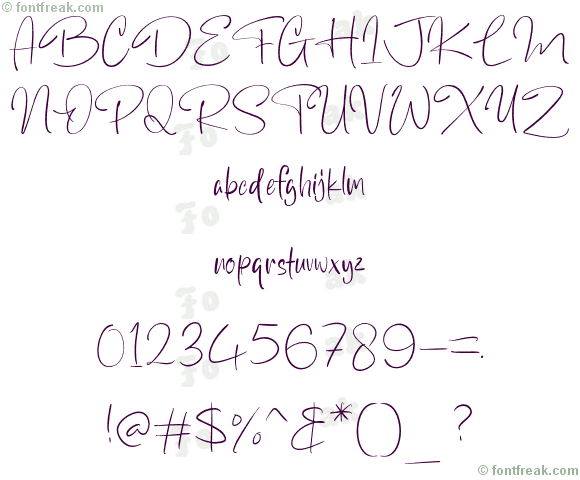
Brillian Catalyst
About Brillian Catalyst
Brillian Catalyst by MJType is a striking handwritten font that effortlessly combines elegance with a modern flair. This font features fluid, organic strokes with a light to medium stroke weight, providing a graceful balance that enhances readability while maintaining an artistic touch. The letters exhibit a natural rhythm, with well-spaced characters that create an inviting and airy feel, making it ideal for various design applications.
The visual characteristics of the Brillian Catalyst font are captivating. Its flowing lines are complemented by subtle variations in thickness, adding depth and personality. The slightly slanted design gives it a dynamic, lively appearance, making it perfect for projects that require a personal touch. Decorative elements are minimal yet effective, allowing the font to shine in both formal and casual contexts.
Brillian Catalyst is well-suited for a range of use cases. It can elevate wedding invitations with its romantic and sophisticated feel, while also being perfect for stylish restaurant menus that want to convey a sense of warmth and hospitality. Additionally, this font works wonderfully for branding projects, such as logos and packaging designs, where a unique, handwritten aesthetic is desired. Content creators will find it a valuable asset for social media graphics and blog headers, adding a touch of creativity and charm.
What sets the Brillian Catalyst font apart is its ability to blend artistry with functionality. This font not only captivates the eye but also serves a practical purpose in communication, making it a must-have for anyone seeking to make a lasting impression. Don't miss your chance to explore the Brillian Catalyst font free download and elevate your design work today.